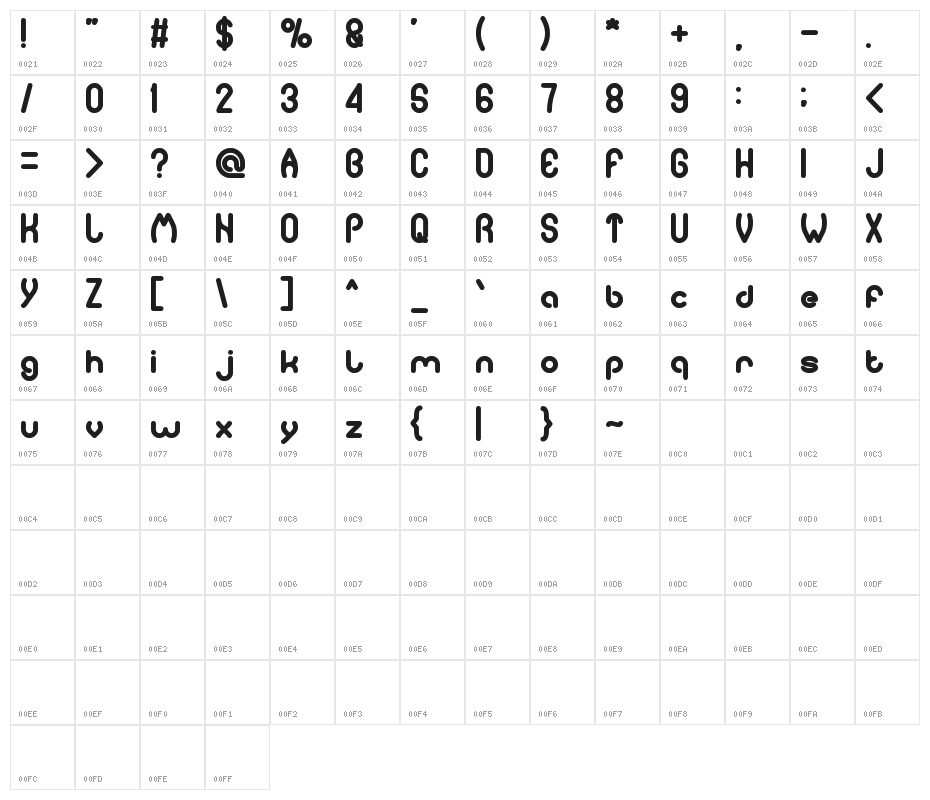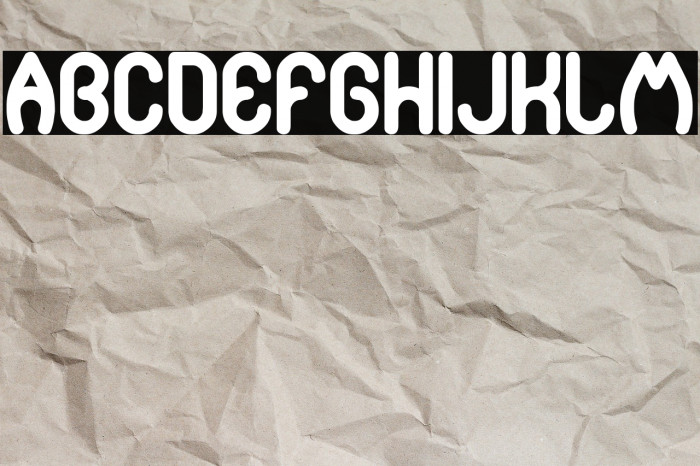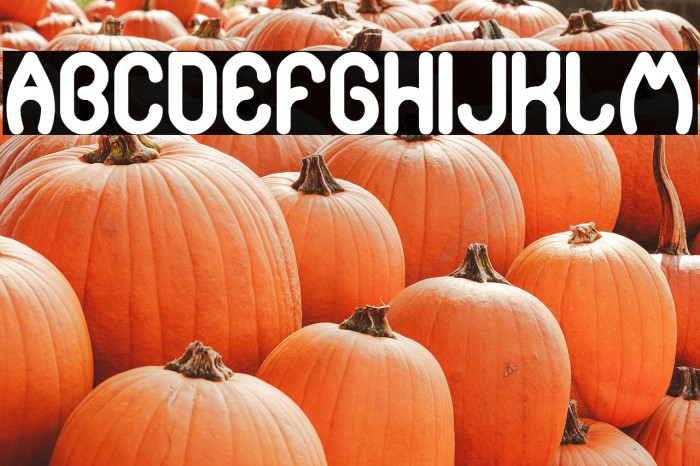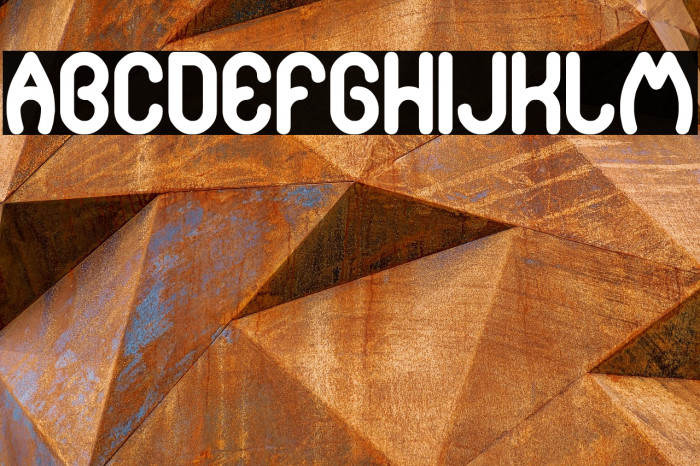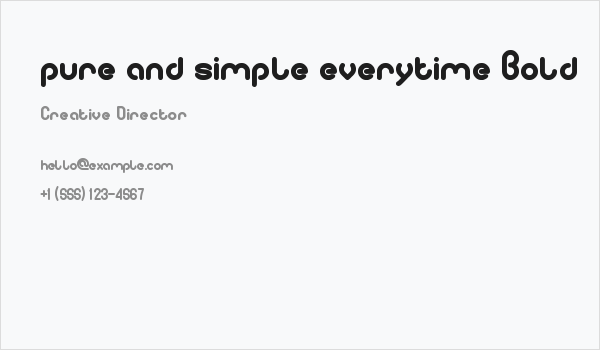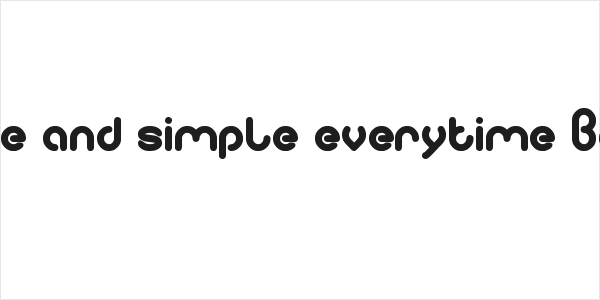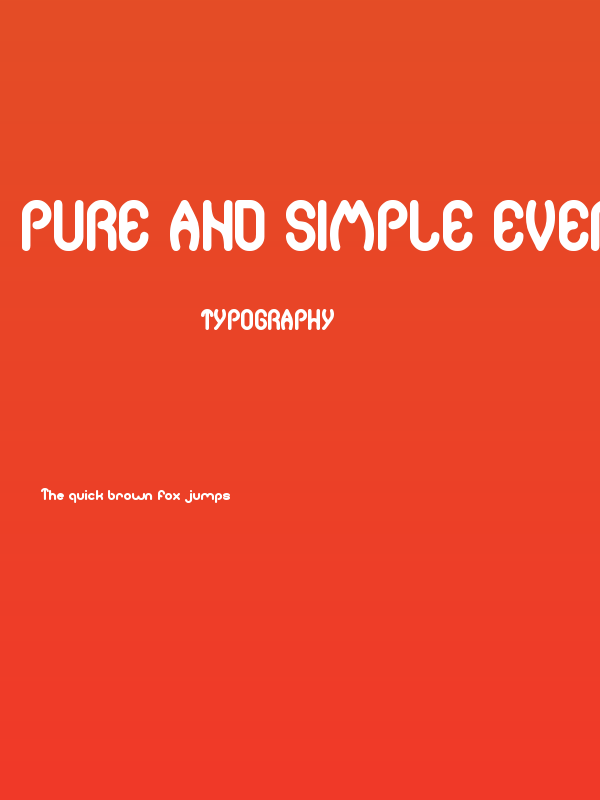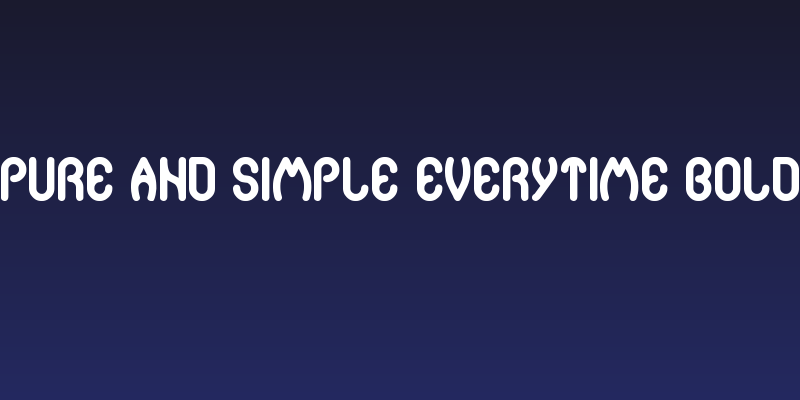
pure and simple everytime Bold Font
pure and simple everytime Bold Description
This font features a bold, rounded style with a playful and approachable appearance. The characters are uniformly thick, giving it a strong presence and making it highly legible. The rounded edges and consistent stroke width contribute to a friendly and modern aesthetic. It maintains a consistent baseline and x-height, ensuring readability across different sizes. The numerals and special characters are designed to match the overall style, providing a cohesive look. This font is versatile, suitable for various design needs where a bold and inviting typeface is desired.
| Proposed Projects | Ideal for branding, children's books, posters, and playful design projects. |